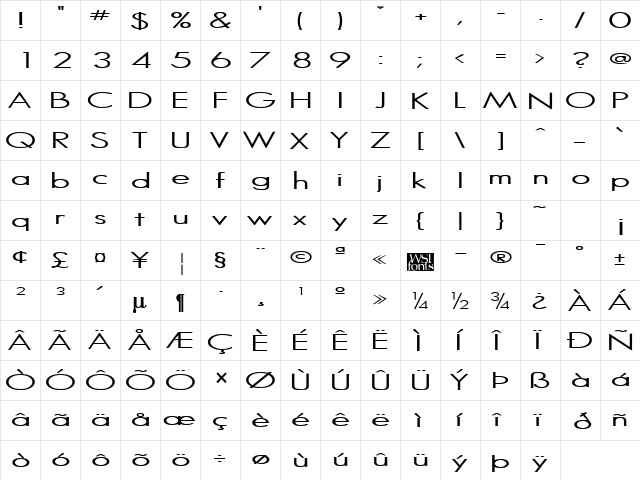
Halibut Regular
Design Context for Halibut Typeface
Halibut is a composed and adaptable typeface that performs quietly and consistently across a wide range of design contexts.